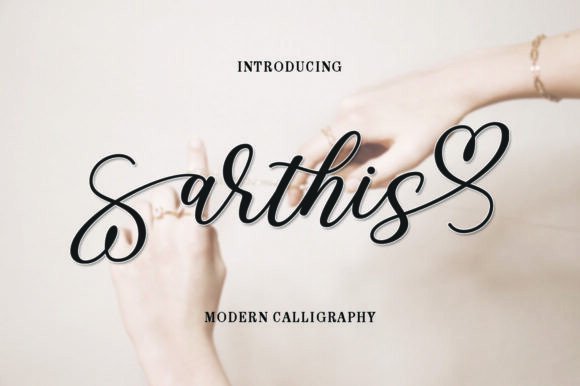
Introduction to Arthis Font
Arthis is a charming calligraphy font that blends romantic flair with an effortless, flowing elegance.
Designed with graceful curves and a natural rhythm, its characters dance along the baseline, creating a handwritten look that feels both casual and refined This versatile script is ideal for a wide range of applications, from wedding stationery and logo design to apparel, product packaging, signage, and editorial layouts.